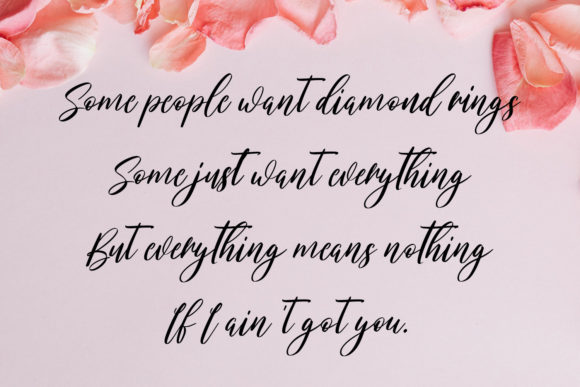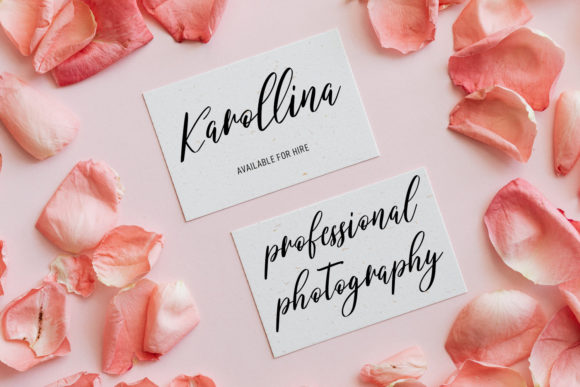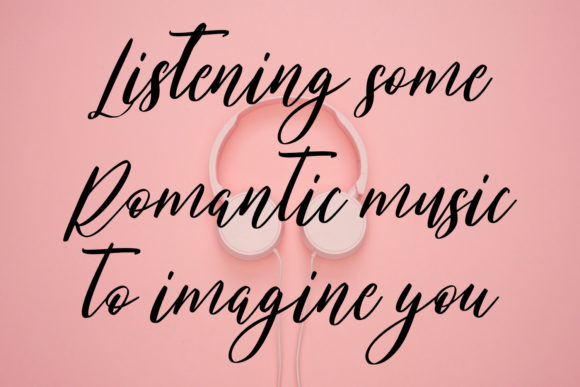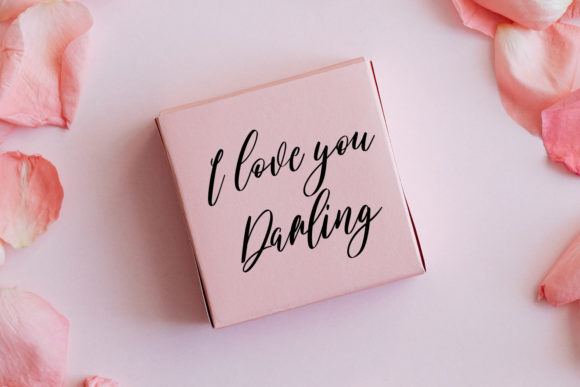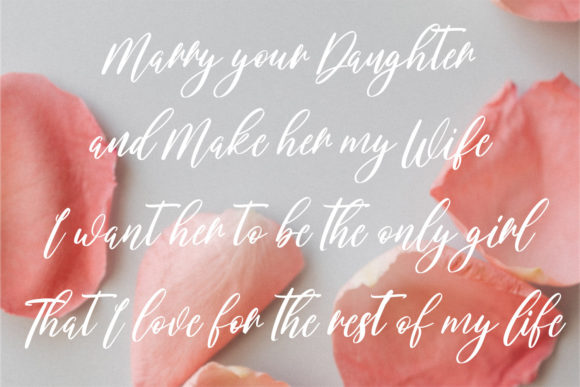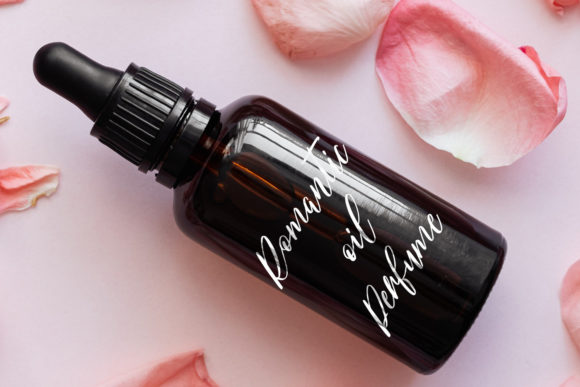
Introduction to Lovesmilly Feminine Font
As a designer, there’s nothing quite like the thrill of discovering a new font that captures the essence of your creative vision. For me, it was a late-night project, pouring over countless font options, when I stumbled upon the Lovesmilly Feminine Font. Its delicate script and elegant curves immediately transported me to a world of high-quality design, where every detail matters.
With its transparent background and free download availability, the Lovesmilly Feminine Font has become an invaluable resource for designers seeking to elevate their creative projects. Whether you’re working on a wedding invitation, a fashion brand’s logo, or a romantic novel’s book cover, this font is sure to add a touch of sophistication and class.
As a design enthusiast, I can attest to the value of having a versatile and beautiful font like Lovesmilly Feminine Font in your arsenal. Its versatility and high-quality design make it an essential addition to any designer’s toolkit, and I’m excited to share its story with you in this article.
Key Features of Lovesmilly Feminine Font
- High-quality design resource suitable for various creative projects, including invitations, greeting cards, and social media graphics.
- Features a beautiful, elegant design with unique flourishes and subtle textures, perfect for adding a touch of femininity to your work.
- Includes a range of glyphs and characters, including uppercase and lowercase letters, numbers, and punctuation marks.
Honest Review: Lovesmilly Feminine Font
I recently stumbled upon the Lovesmilly Feminine Font, and I must say it’s a lovely addition to any design project. As a designer, I’m always on the lookout for high-quality design resources that can elevate my creative work. This font definitely fits the bill.
Here are some of the things that work well with the Lovesmilly Feminine Font: ✨
- Beautiful, elegant script that’s perfect for invitations, quotes, and other creative projects.
However, there are a few limitations to keep in mind: ⚠️
- The font may not be suitable for body text due to its script nature.
Overall, I’m impressed with the Lovesmilly Feminine Font. It’s a great design resource that can add a touch of elegance to any creative project. With its high-quality design and transparent background, it’s a must-have for any designer looking to elevate their work.
Getting the Most Out of the Lovesmilly Feminine Font
For the best results, use the Lovesmilly Feminine Font in combination with other design elements, such as pastel colors and floral patterns. Experiment with different font sizes, styles, and arrangements to achieve the desired look for your creative project.
Common Use Cases for the Lovesmilly Feminine Font
The Lovesmilly Feminine Font is ideal for a variety of creative projects, including wedding invitations, baby shower invitations, and social media graphics. It’s also perfect for designing branding materials, such as logos and business cards, that require a touch of elegance and sophistication.